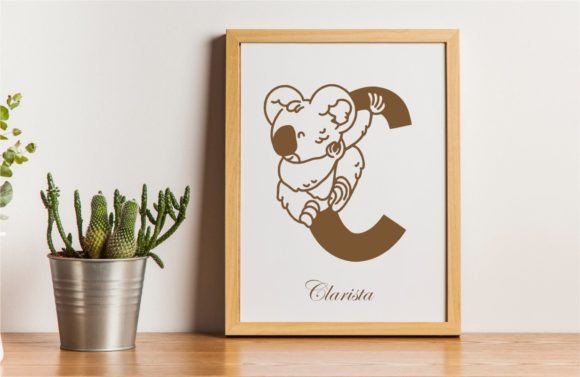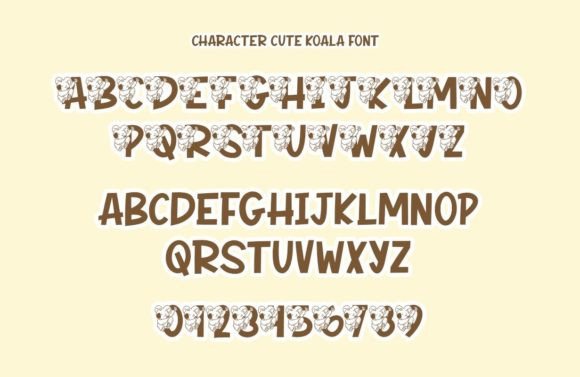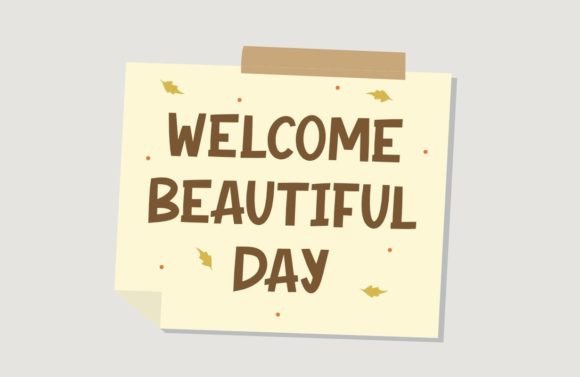
Introduction to Cute Koala Font
As a designer, have you ever been stuck on a creative project, struggling to find the perfect font to bring your idea to life? I know I have. That’s why I’m excited to share with you a game-changing design resource that’s sure to put a smile on your face – the Cute Koala Font!
Imagine adding a touch of whimsy and fun to your designs with a font that’s as adorable as it is functional. The Cute Koala Font is a high-quality, free download that’s perfect for any creative project, from children’s book illustrations to social media graphics.
With its transparent background and customizable design, this font is a valuable addition to any designer’s toolkit. Whether you’re a seasoned pro or just starting out, the Cute Koala Font is sure to bring a touch of magic to your next design project.
Key Features of Cute Koala Font
- Cute Koala Font is a high-quality design resource suitable for various creative projects, including children’s books, greeting cards, and educational materials.
- The font features a transparent background, making it easy to customize and combine with other design elements.
- This adorable font is available in 5 different sizes, ranging from 24 to 72 points, to suit various design needs.
- With a resolution of 300 DPI, Cute Koala Font ensures crisp and clear text, even when scaled up or down.
- The font’s unique characteristics, including its rounded edges and endearing expression, make it an ideal choice for designers seeking a cute and playful aesthetic.
- Cute Koala Font is a versatile design resource that can be used in a wide range of creative projects, from digital art to print materials.
Honest Review: Cute Koala Font
I recently stumbled upon the Cute Koala Font, a free download that caught my attention for its unique design and high quality. As a designer, I’m always on the lookout for fresh design resources to elevate my creative projects.
What works well about the Cute Koala Font is its adorable and playful style, perfect for projects that require a lighthearted touch. The font is also available for free download, which is a major plus for designers on a budget. The transparent background option allows for seamless integration with various design elements.
Here are some of the key features that stood out to me:
- ✨ Unique and playful design style
- ✨ High-quality font files
- ✨ Transparent background option
One potential limitation is that the font may not be suitable for all types of projects, particularly those that require a more serious or formal tone.
Overall, I’m impressed with the Cute Koala Font and would recommend it for designers working on creative projects that need a touch of whimsy.
Cute Koala Font is commonly used in design projects that require a cute and playful touch, such as children’s book covers, greeting cards, and social media graphics.